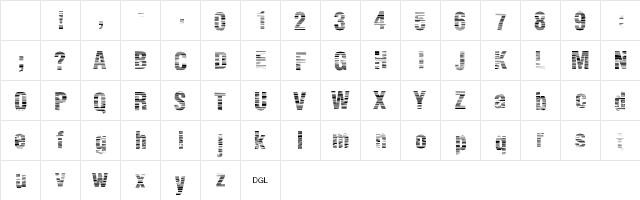
Complete Static Age Horizontal Hold Regular glyph index. Displaying only characters natively supported by Static Age Horizontal Hold Regular font.
Static Age Horizontal Hold is a composed and adaptable typeface that performs quietly and consistently across a wide range of design contexts.